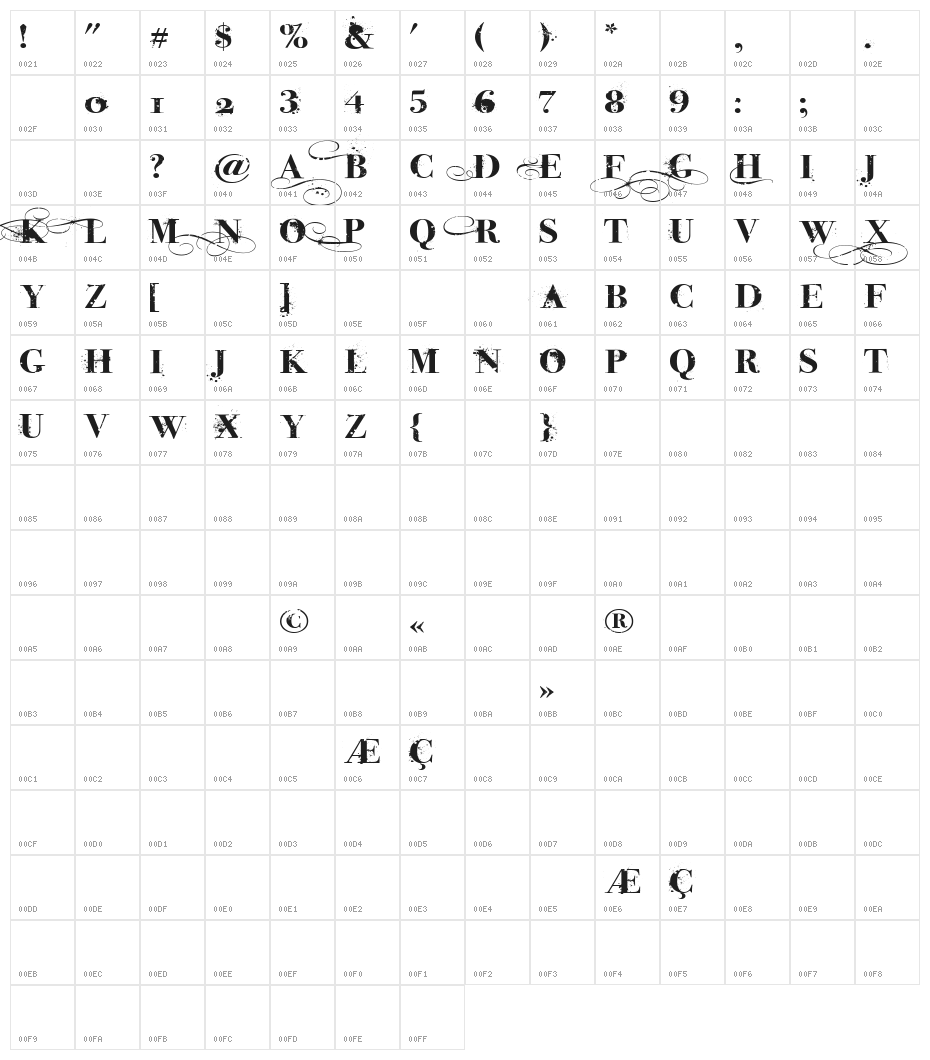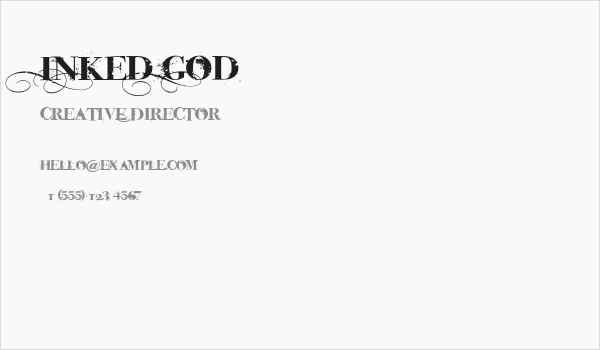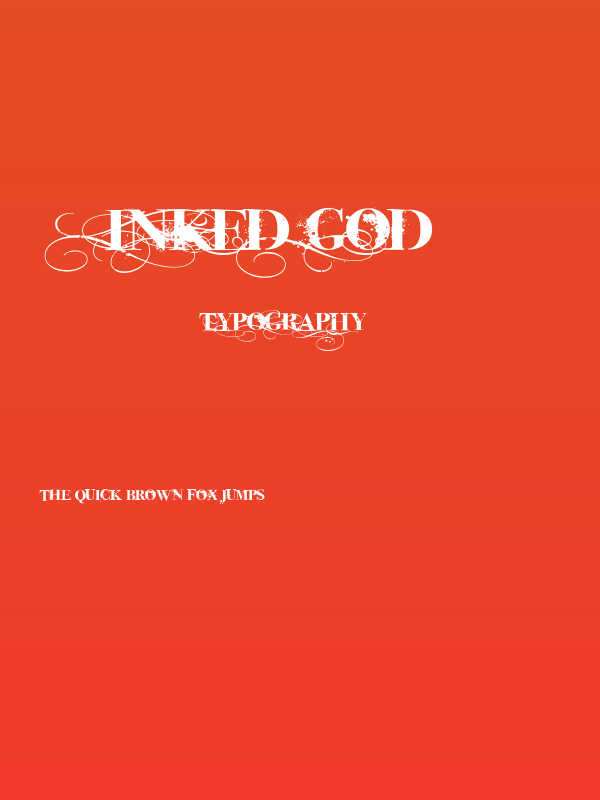
iNked God Font
iNked God Description
This font is a bold and decorative typeface with a distinct grunge aesthetic. It features a combination of elegant serif characters with splatter and distressed effects, giving it a unique and edgy appearance. The uppercase letters are adorned with intricate flourishes, adding a touch of sophistication. The numbers and special characters maintain the same distressed style, ensuring consistency across all glyphs. This font is ideal for projects that require a dramatic and artistic flair, such as album covers, posters, and branding for edgy or alternative products.
| Proposed Projects | Album covers, posters, edgy branding, artistic projects. |